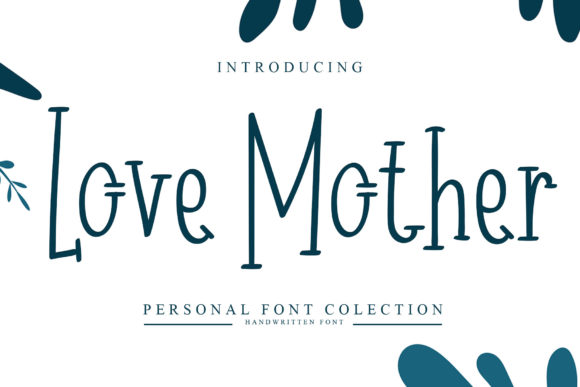
Behold, Love Mother Font: The Whimsical Display Font to Unleash Your Creative Magic
In the realm of typography, where words take on visual form, there exists a font that dances with whimsy and embraces a relaxed theme: Love Mother Font. This display font is a captivating creation by giartstudios, crafted to elevate your designs with a touch of playful elegance.
Love Mother Font is not merely a collection of characters; it's an invitation to let your imagination soar. Each letterform is meticulously designed to exude charm and personality, adding a touch of magic to your digital creations. Whether you're crafting eye-catching logos, designing heartwarming invitations, or creating whimsical posters, Love Mother Font will be your trusty companion, transforming your words into works of art.
Immerse yourself in the world of Love Mother Font and discover a symphony of visual delight. Its relaxed theme evokes a sense of tranquility, allowing your designs to effortlessly convey warmth and serenity. This font is a breath of fresh air, a departure from the mundane and ordinary, beckoning you to explore new creative horizons.
Love Mother Font possesses an inherent versatility that makes it the perfect choice for a wide range of projects. Its playful nature lends itself beautifully to children's books, invitations, and social media graphics. Its elegant charm shines through in wedding invitations, greeting cards, and branding materials. With Love Mother Font, your designs will leave a lasting impression, captivating audiences with its unique and unforgettable style.
Unlock the full potential of your creative vision with Love Mother Font. Let its whimsical charm infuse your designs with a touch of magic. Whether you're an experienced designer or just starting your creative journey, this font will elevate your projects to new heights. Embrace the beauty of Love Mother Font and watch your words come alive with personality and charm.